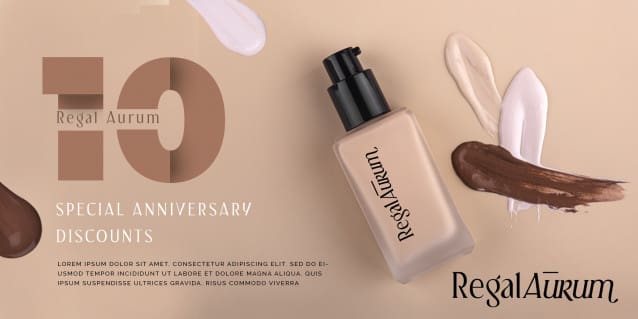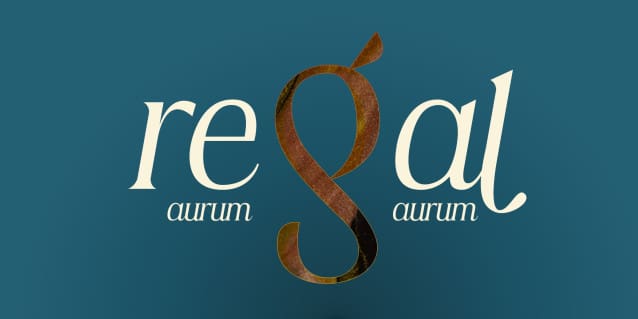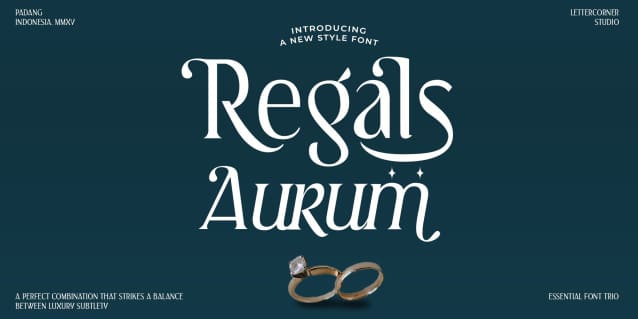
Regals Aurum Font
Regals Aurum Font, a charming serif typeface that blends classic elegance with a warm, approachable demeanor. With its gently rounded edges and timeless letterforms, Regals Aurum exudes reliability and friendliness, making it perfect for both print and digital media.
This font is perfect for any branding project such as logos, t-shirt printing, creative products, and more. extraordinary in a variety of contexts.
It contains uppercase, number, punctuation, symbols and support multilingual. Regals Aurum font is great for branding, business cards, logo, poster, t-shirt, photography, invitations, and more.